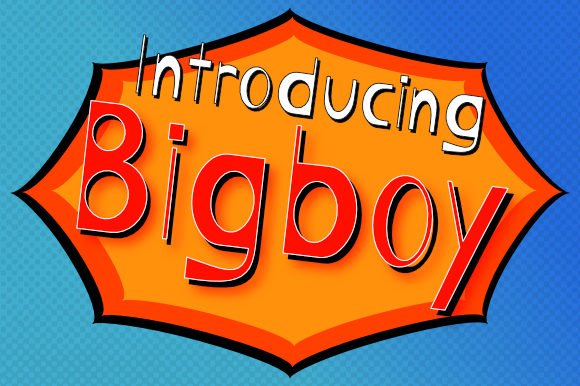
When Fonts Get a Little Too Big
Remember that moment when you stumbled upon the perfect font to elevate your project? For me, it was when I discovered Bigboy Font – a bold and quirky display font that screams “let’s have fun!” with its kooky and round charm.
Bigboy Font is more than just a pretty face; it’s a versatile tool designed to add a touch of whimsy to your designs. Whether you’re creating a playful logo, a vibrant social media graphic, or a quirky poster, Bigboy Font is the perfect companion to bring your ideas to life.
As a designer, you know how valuable it is to have a font that can add a unique twist to your work. Bigboy Font is a hidden gem that can take your designs from meh to mesmerizing, making it a must-have in your font library.
Bigboy Font Key Features
- Font Family: Bigboy is a sans-serif font family designed for digital use.
- Unique Characteristics: Bigboy Font features a bold and playful design, with a unique blend of rounded and angular shapes, making it ideal for use in logos, headings, and titles.
Designer Review: Bigboy Font
Overall, I think Bigboy Font is a decent choice for designers looking for a bold, playful font. ✨ The font’s unique personality and quirky feel can add a lot of character to designs, making it perfect for projects that need a bit of whimsy.
The font’s versatility is one of its strongest suits. ✨ It comes in a variety of weights, making it easy to use in different contexts, from headings to body text. The font’s rounded edges and chunky lines also make it suitable for use in logos, icons, and other visual elements.
However, I do have a few reservations about Bigboy Font. ⚠️ One of its main limitations is its readability. At larger font sizes, the font can become overwhelming and difficult to read, especially for body text. Additionally, the font’s quirky feel may not be suitable for all projects, particularly those that require a more professional or serious tone.
Here are some of the font’s key features:
- Unique personality and quirky feel
- Versatile and comes in a variety of weights
- Suitable for use in logos, icons, and other visual elements
- May be difficult to read at larger font sizes
- Not suitable for all projects (e.g. professional or serious tone)
Overall, I would recommend Bigboy Font for designers who are looking for a bold, playful font to add some personality to their designs. However, it’s essential to use it judiciously and consider the project’s tone and context before making a final decision.
The Bigboy Font is a bold, playful font that’s perfect for:
- Casual graphics and social media posts
- Children’s books and educational materials
For optimal use, pair the Bigboy Font with a clean and simple design to let the font be the focal point.